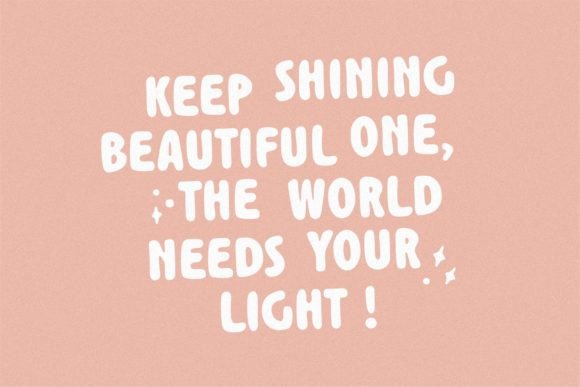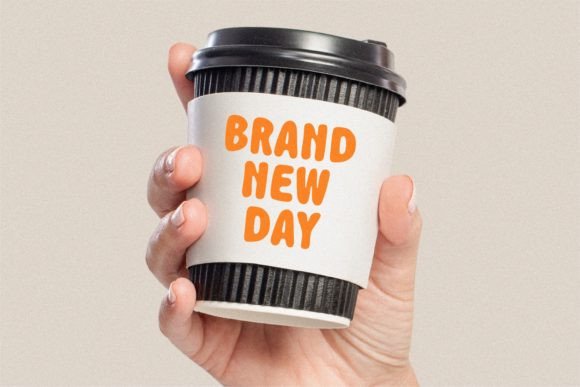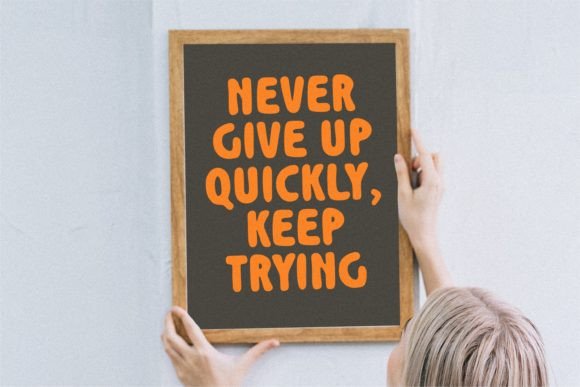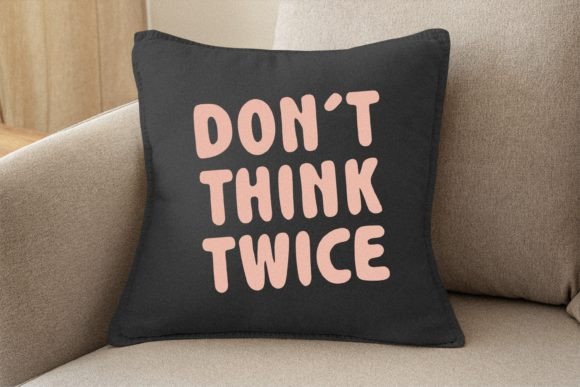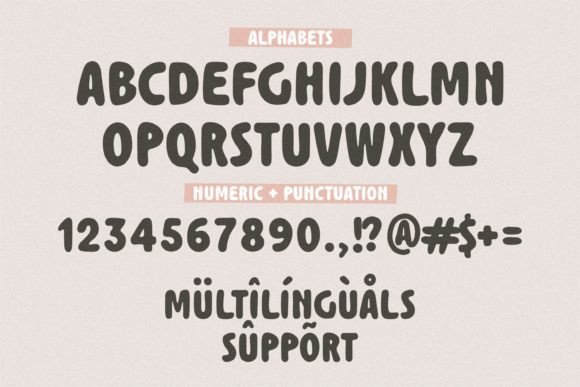
The Candle Quotes Font: A Sweet and Friendly Companion for Your Design Journey
Have you ever been in the middle of a design project, and suddenly, you just can’t seem to find the right font? I recall a particularly frustrating moment when I was working on a branding project for a cozy candle company. The client wanted a font that was warm, inviting, and conveyed a sense of handmade charm. I scoured the internet, tried out dozens of fonts, but nothing seemed quite right. That was until I stumbled upon the Candle Quotes font. ✨
I’m thrilled to share my honest review of the Candle Quotes font. Here’s what I love:
- ✅ Unique and natural style: The Candle Quotes font has a distinct, handwritten feel that’s perfect for designs that require a personal touch.
- ✅ Versatility: This font can be used for a wide range of projects, from branding and packaging to social media graphics and invitations.
- ✅ Ease of use: The font is easy to read and works well in various sizes, making it perfect for both digital and print designs.
- ✨ Emotional connection: The Candle Quotes font has a way of evoking feelings of warmth and coziness, making it perfect for designs that require a personal touch.
As for quirks or limitations, here are a few to keep in mind:
- ⚠️ Limited character set: While the font has a wide range of characters, it may not have every special character or glyph you need.
- 🤔 Kerning issues: As with any font, you may need to adjust the kerning to ensure that the text looks balanced and visually appealing.
The Story Behind Candle Quotes
The Candle Quotes font was designed by a talented type designer who’s passionate about creating fonts that evoke emotions and bring people joy. The designer wanted to create a font that was warm, inviting, and perfect for designs that require a personal touch. The result is a font that’s both unique and versatile, with a natural style that’s sure to capture your audience’s attention.
| Font Name | Candle Quotes Font |
| Author | Balpirick |
| What is the Candle Quotes font best used for? | The Candle Quotes font is perfect for designs that require a personal touch, such as branding, packaging, social media graphics, and invitations. |
| Does the Candle Quotes font support OpenType features? | Yes, the Candle Quotes font supports OpenType features, such as stylistic alternates and glyphs. These features can be accessed through the font’s OpenType tab in compatible design software. |